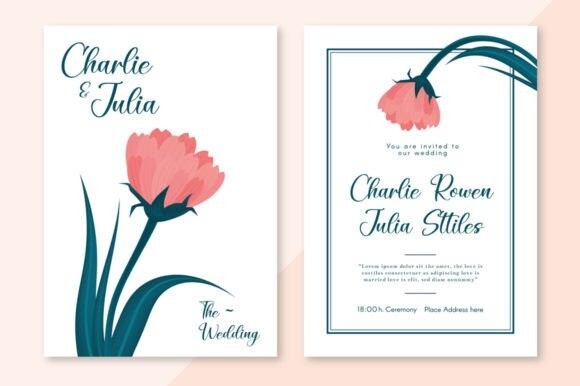
Daniela Script Font
Designer: Nirmala Creative
Daniela Script Font, is a lovely and timeless handwritten font. It is the best choice for creating eye-catching logos, branding, and quotes.